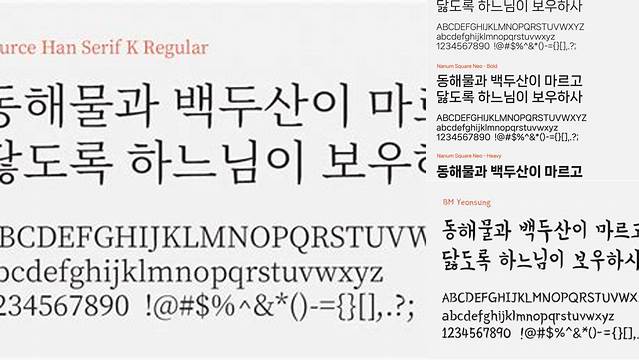
Korean Fonts: Free For Commercial Use
Hey guys! Finding the perfect Korean fonts free for commercial use can sometimes feel like searching for a needle in a haystack, right? You need something that looks great, fits your brand, and doesn't land you in legal hot water. So, let’s dive into the world of Korean fonts free for commercial use, exploring where to find them, what to look for, and how to use them effectively in your projects.
H2: Understanding Font Licensing
H2: Popular Korean Font Foundries
Alright, so where do you actually find these amazing Korean fonts free for commercial use? Several awesome foundries specialize in Korean typography. Some big names to keep an eye on include companies Naver, and Kakao. They often release free fonts that are high-quality and perfect for various projects. These foundries are a great starting point because they're known for their reliable licenses and excellent font designs.
Beyond the big names, there are also many smaller independent foundries creating unique and interesting Korean fonts. These smaller foundries often have a more experimental approach to design, offering fonts that are more quirky, artistic, or niche. Exploring these can lead to some really unique finds that set your work apart. Don't be afraid to dig around and discover some hidden gems! Many of these independent foundries also offer free trial versions of their fonts, allowing you to test them out before committing to a purchase. This is a great way to ensure the font works well with your design and meets your specific needs. And of course, always double-check the license before using any font, whether it's from a large foundry or an independent designer. With a little research, you can find the perfect Korean font to elevate your project and make it truly stand out.
H2: Websites Offering Free Korean Fonts
H2: Key Features to Look For
When selecting Korean fonts free for commercial use, several key features can make or break your design. First, think about readability. Is the font clear and easy to read, especially at smaller sizes? A beautiful font that's illegible is pretty useless, right? Also, consider the font's style. Does it match the overall tone and aesthetic of your project? A playful, cartoonish font might not be the best choice for a serious business presentation.
Another important aspect is character support. Does the font include all the Korean characters you need, including any special symbols or glyphs? Some free fonts may have limited character sets, which can be frustrating if you need to use specific characters. And finally, think about scalability. Does the font look good at both small and large sizes? A font that looks great in a headline might become blurry or distorted when used in body text. By carefully considering these key features, you can choose a Korean font that not only looks beautiful but also enhances the readability and overall impact of your design. Remember to test the font in different contexts and sizes to ensure it performs well in all situations. This attention to detail will help you create a polished and professional final product.
H3: Korean Fonts for Video Editing
Add stylish subtitles and titles to your videos using Korean fonts free for commercial use that complement your video's aesthetic.
H3: Creating a Harmonious Design with Korean Fonts
Create a harmonious design by carefully selecting Korean fonts free for commercial use that work well with other design elements.
H3: The Future of Korean Font Design
Stay updated on the latest trends in Korean fonts free for commercial use design to keep your projects fresh and relevant.